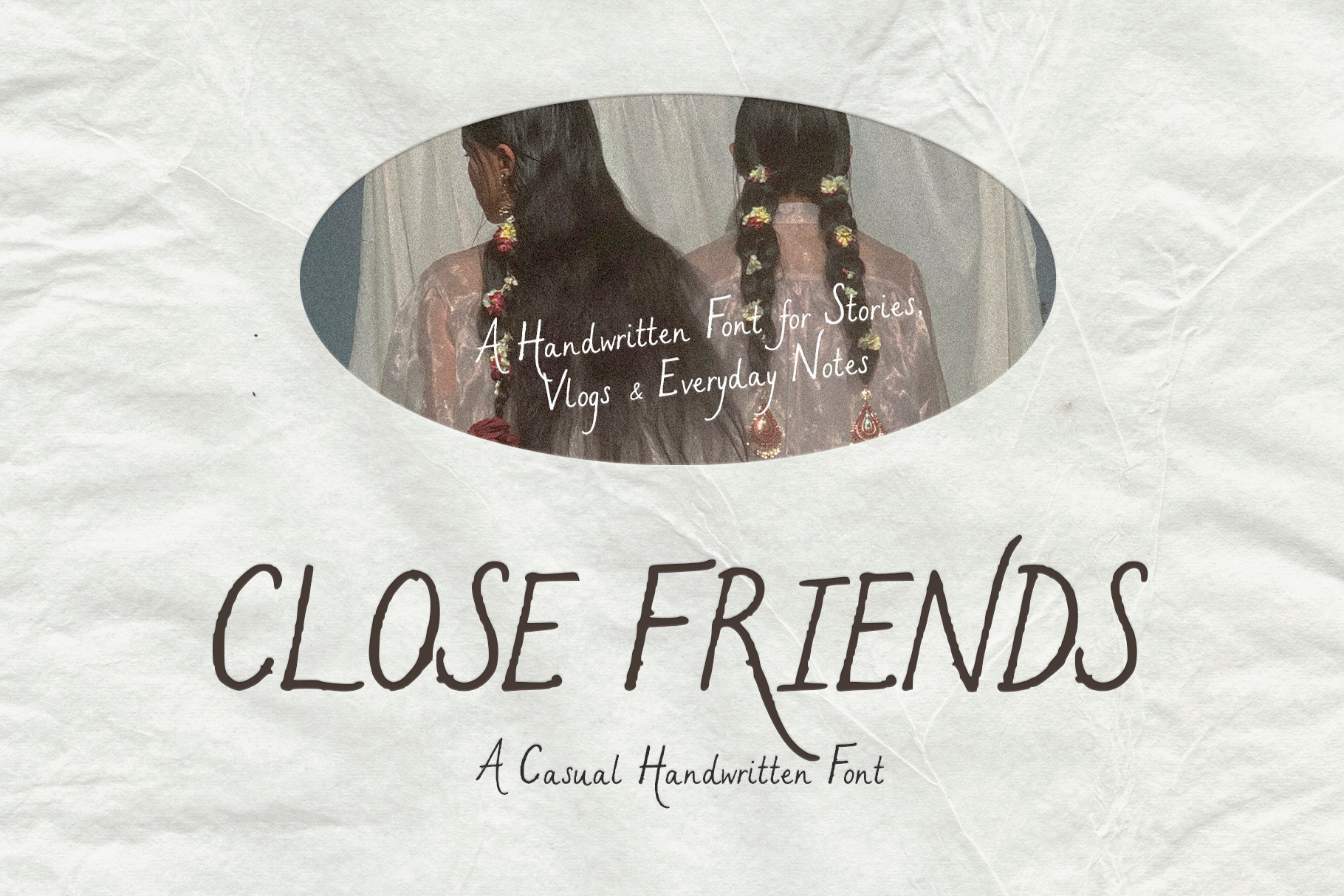
Close Friends Handwritten Font
Close Friends is a tall, irregular handwritten display font created for vlog titles, story captions, fashion edits, photo diaries and everyday notes.
Its narrow letterforms, uneven rhythm and deliberately imperfect strokes give text the energy of quick personal handwriting rather than polished digital lettering. Extended lines and unexpected details add character while keeping headlines clear and readable.
Use Close Friends for:
vlog and video titles
stories and social content
fashion and editorial layouts
photo diaries and moodboards
personal branding
packaging and labels
posters, quotes and captions
invitations and printed stationery
Close Friends works best for headlines, titles, captions, short paragraphs and expressive display text. Its irregular proportions are intentional and form part of the font’s handmade character.